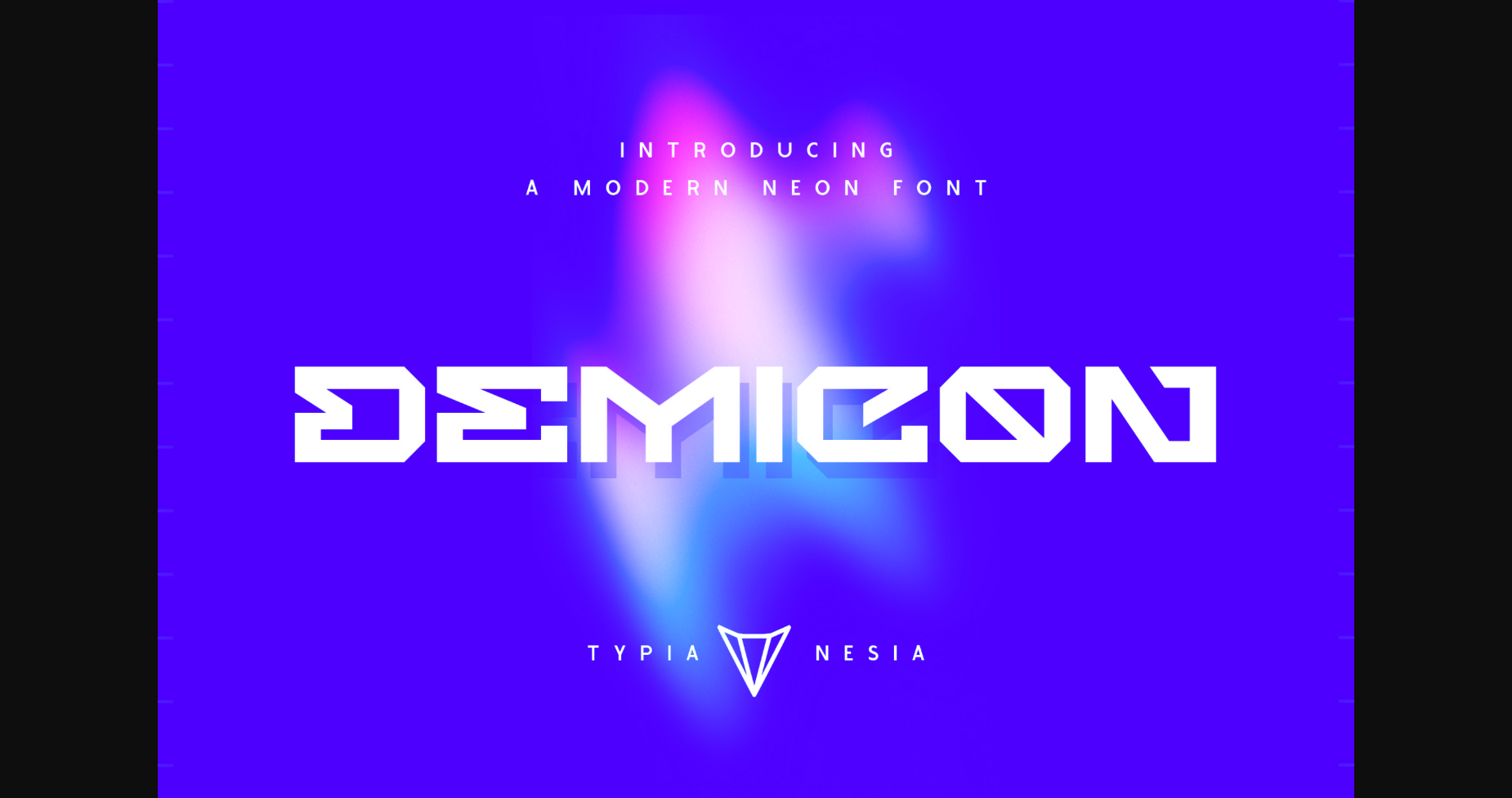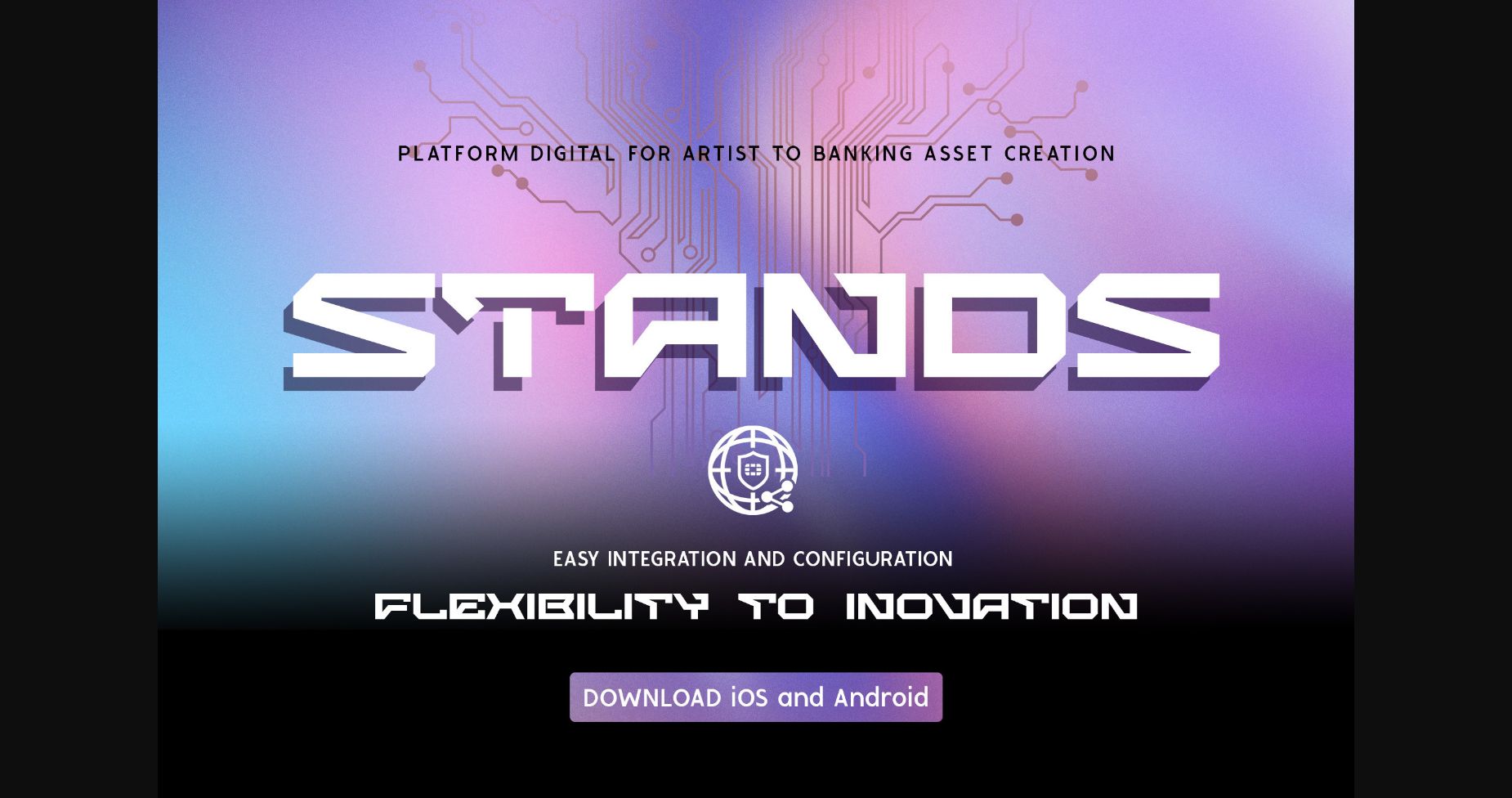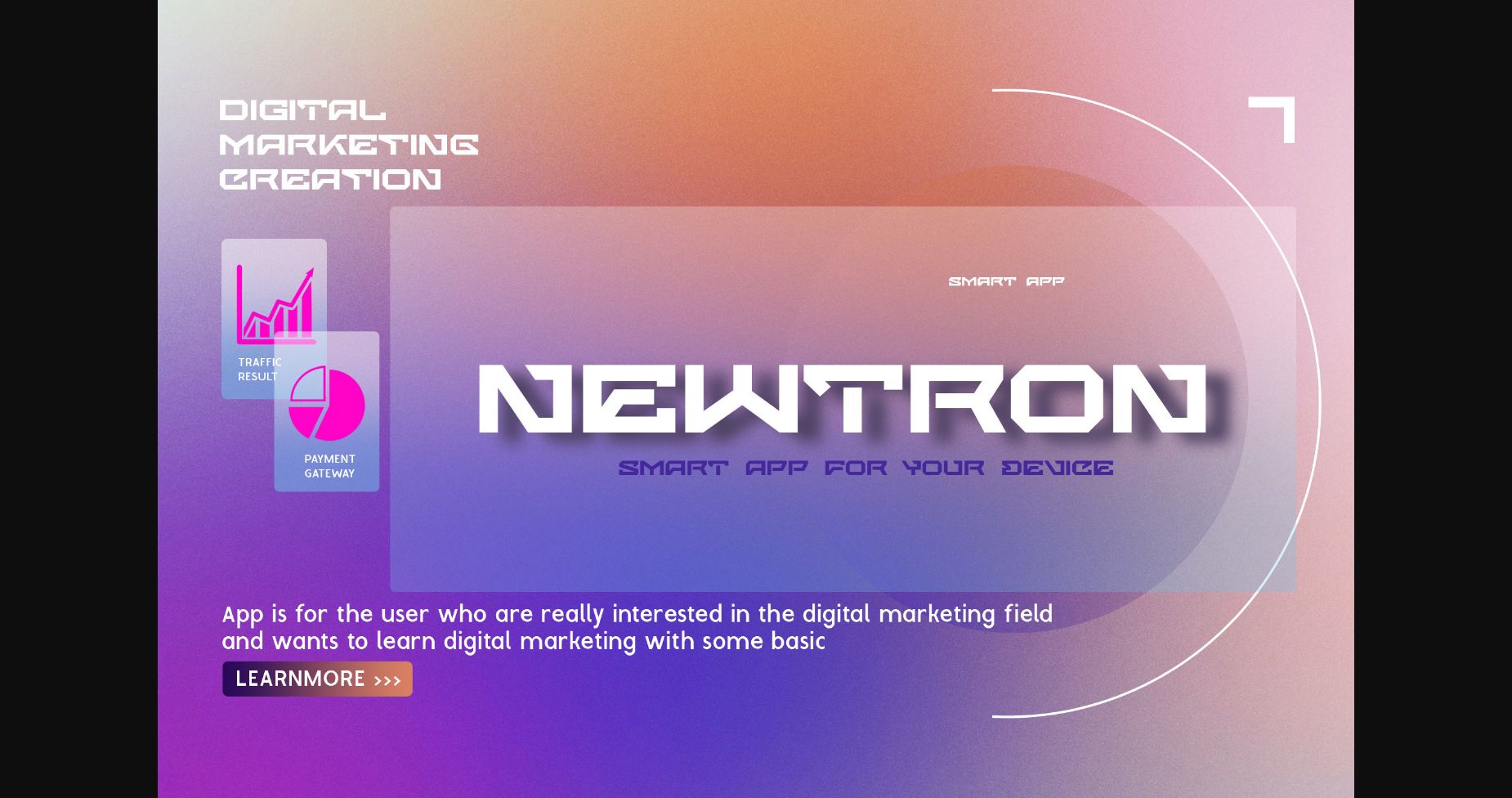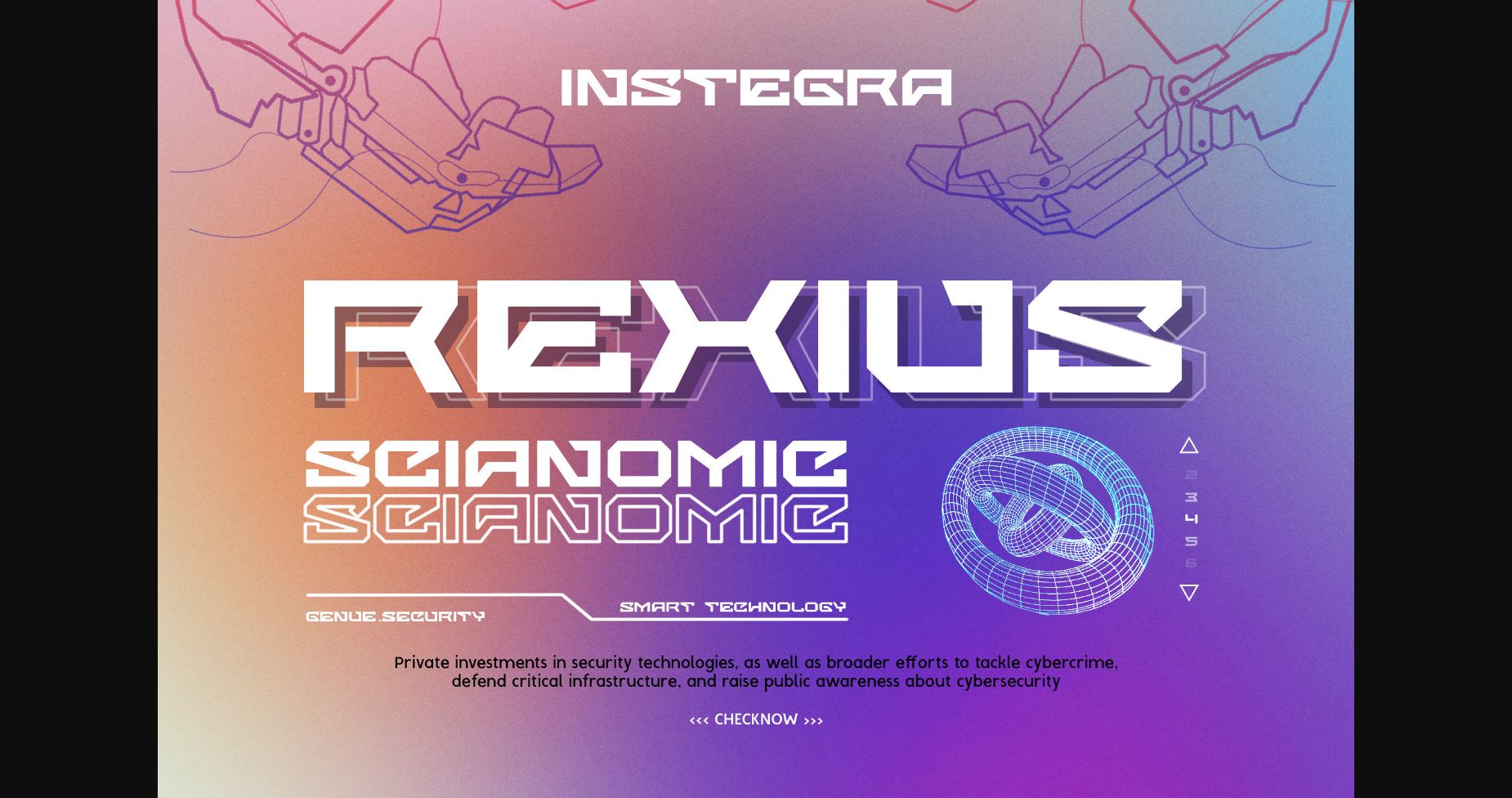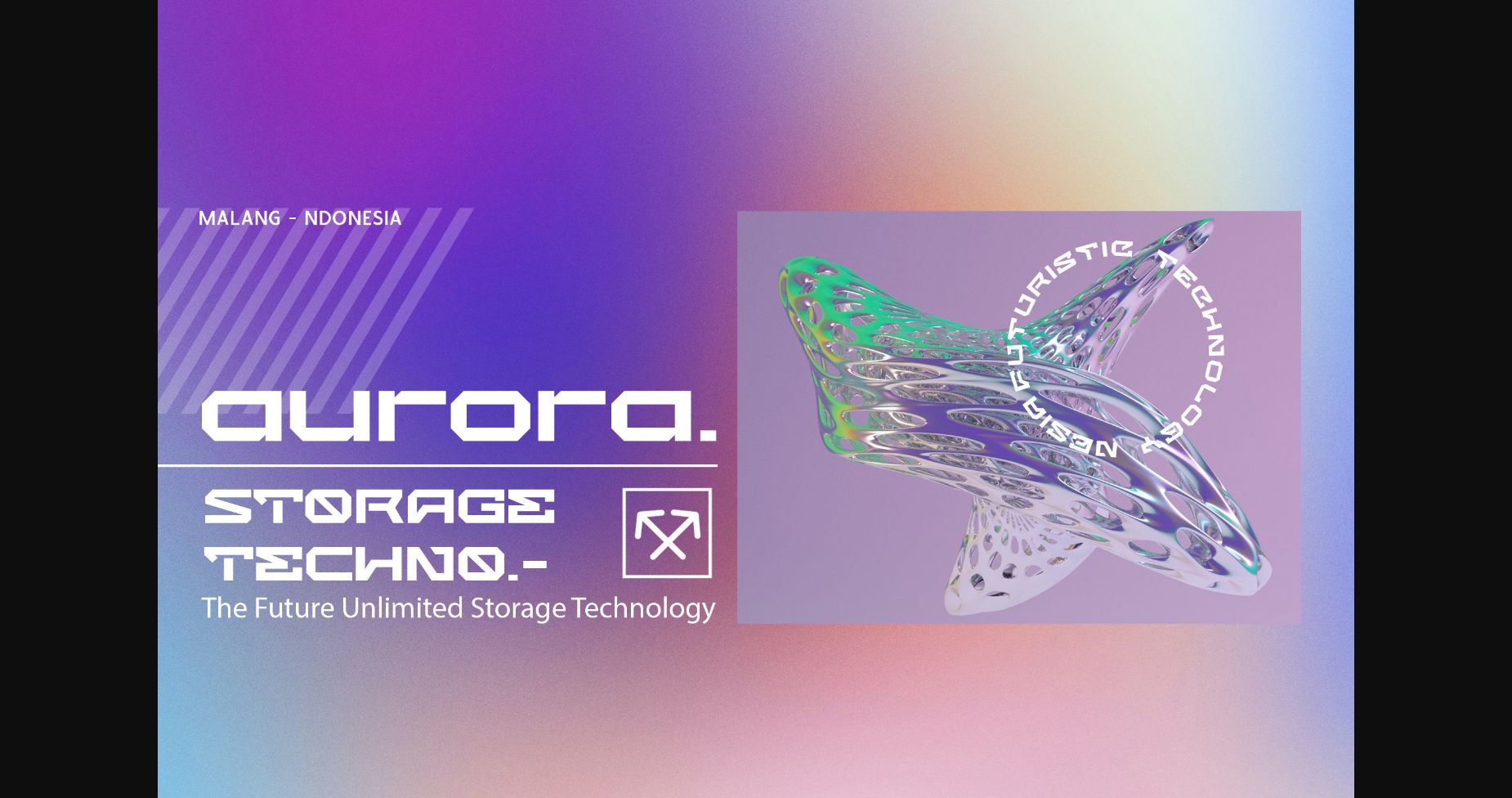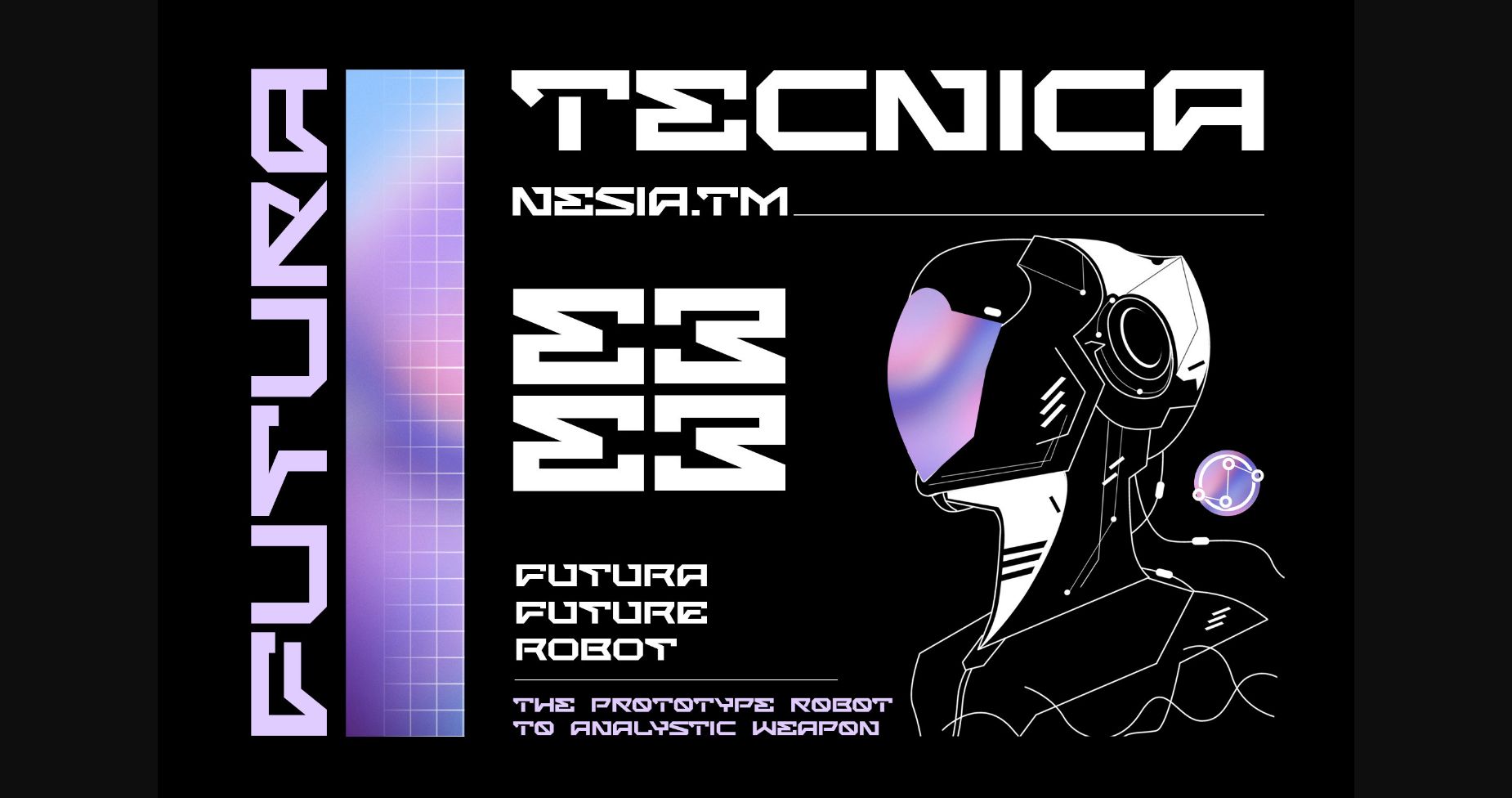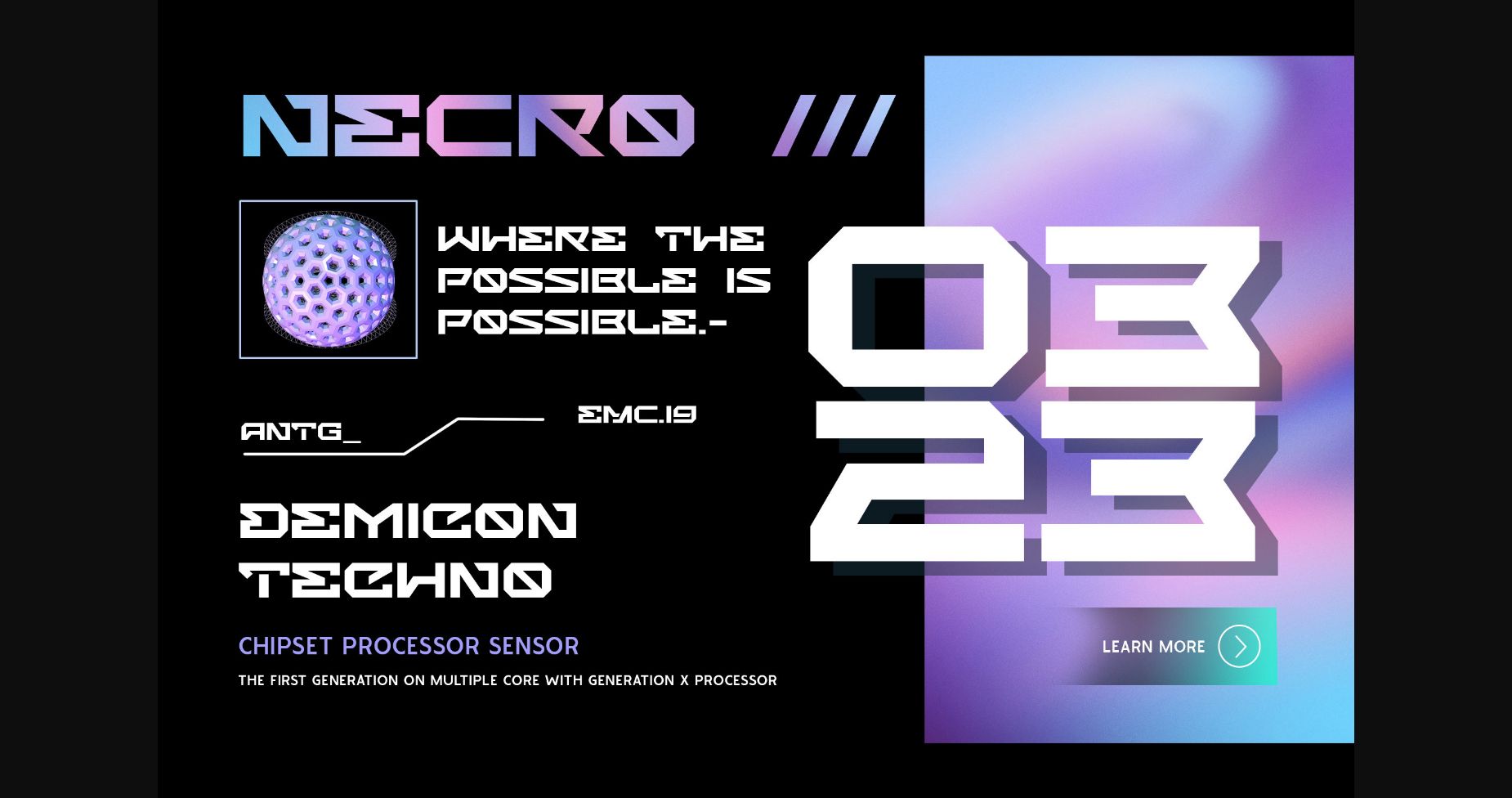
Demicon Font
About Demicon Font
Demicon is a stylish and futuristic/modern expanded sans-serif typeface that features unique ligatures and alternate characters. With its bold appearance, Demicon is ideal for creating eye-catching headlines and graphic designs. This typeface is suitable for various design projects such as branding, packaging, advertising, and more. The font has a versatile style that can be used in both web and print applications. Its modern design and expanded style make it a standout choice for designers looking to add boldness to their designs.